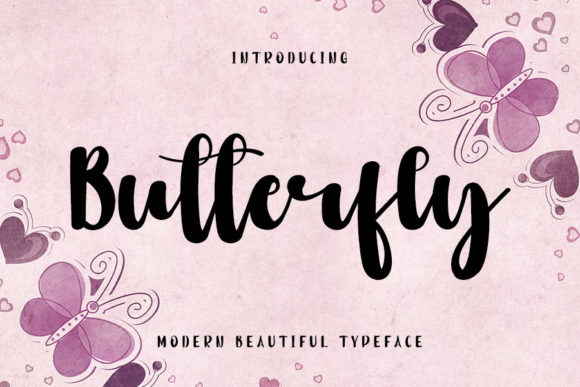
The Magic of Butterfly Font: Elevate Your Designs with Elegance
I’ll never forget the time I was working on a wedding invitation project, and my client asked me to create a custom design that exuded elegance and sophistication. As I scrolled through my font library, I stumbled upon Butterfly Font, and it was love at first sight! ✨ The elegant, curvy lines of this lovely handwritten font instantly captured the essence of the occasion, and I knew I had found the perfect fit.
A Personal Review of Butterfly Font
- ✨ Elegant and curvy lines that add a touch of sophistication to any design
- ✅ Perfect for a variety of projects, including product packaging, branding, magazine covers, social media, and wedding designs
- 🎨 Highly versatile and can be used to create a range of emotions, from whimsical to romantic
- 💻 Clean and readable, making it ideal for both digital and print designs
While Butterfly Font is an amazing addition to any design project, there are a few things to keep in mind: 🤔
- ⚠️ Some of the more intricate swashes and flourishes may not display correctly in older software or browsers
- ⚠️ May require some manual kerning to achieve optimal results
- Experiment with the font’s OpenType features, such as swashes and stylistic alternates, to add some extra flair to your design
Butterfly Font was designed by a talented typographer who wanted to create a font that captured the essence of elegance and sophistication. Inspired by the delicate wings of butterflies, this font features intricate swashes and flourishes that add a touch of whimsy to any design. With its clean lines and beautiful curves, Butterfly Font is the perfect choice for designers, crafters, and creative hobbyists looking to elevate their designs.
Q: What type of projects is Butterfly Font best suited for?
A: Butterfly Font is perfect for a variety of projects, including product packaging, branding, magazine covers, social media, wedding designs, and more.